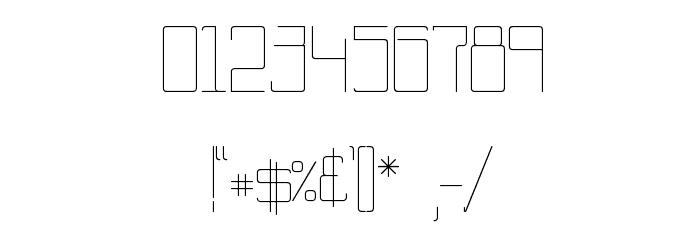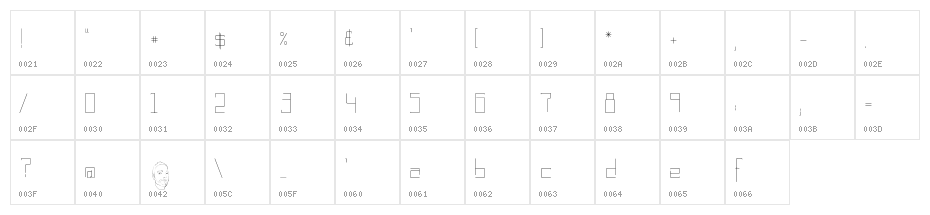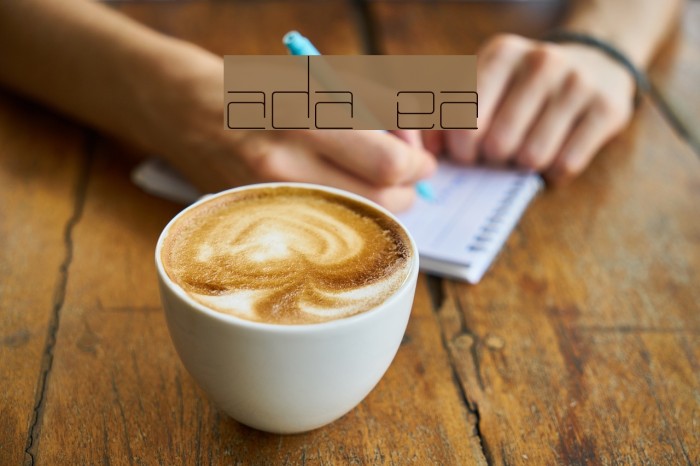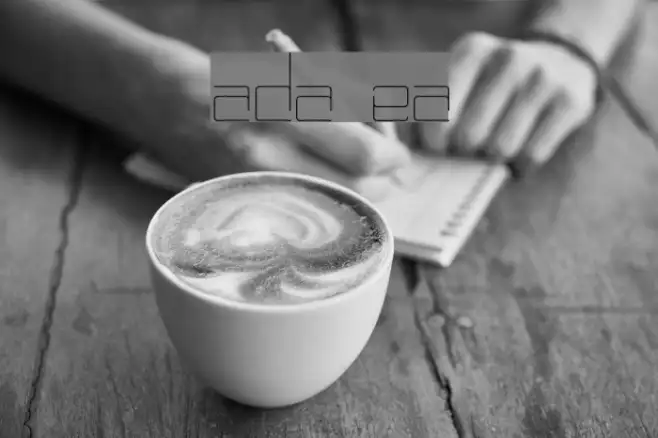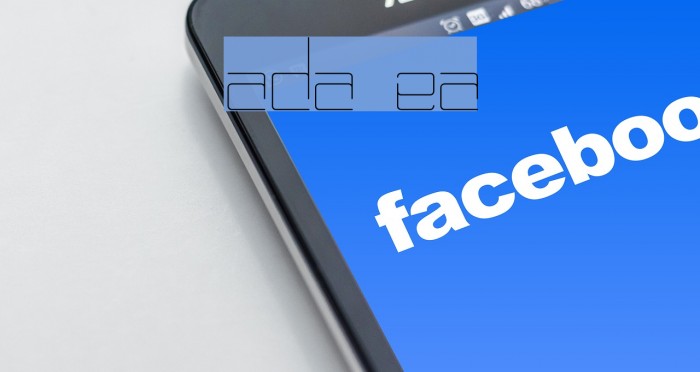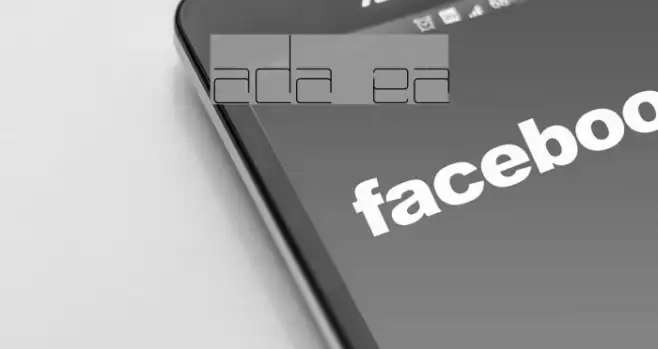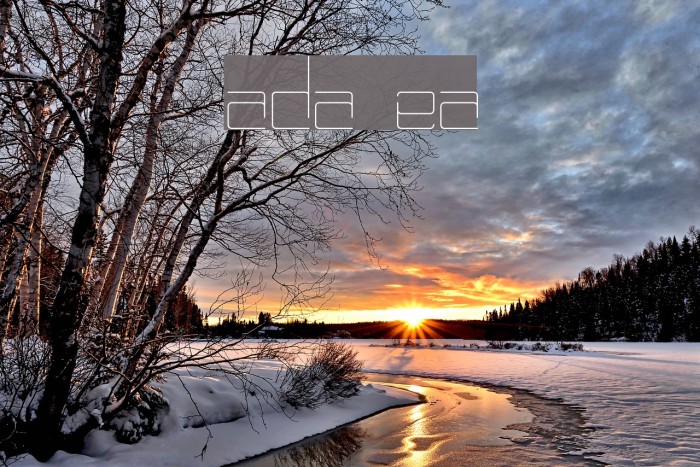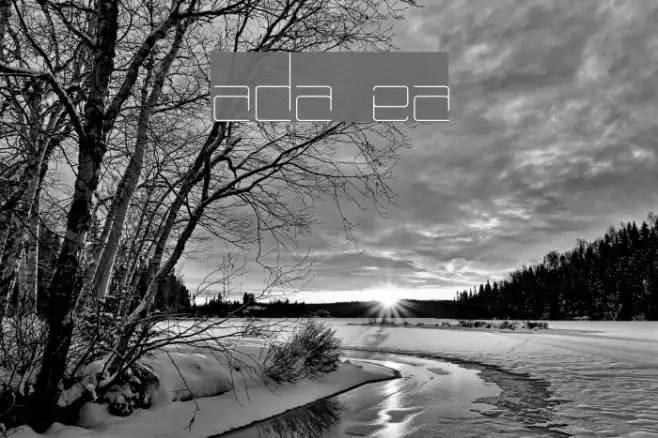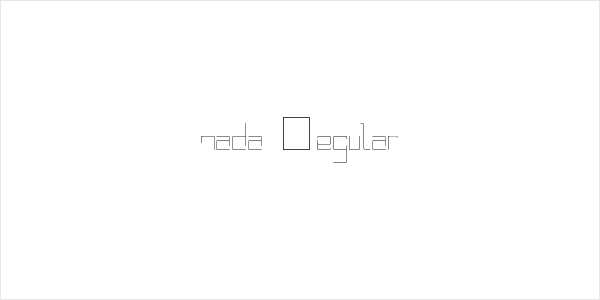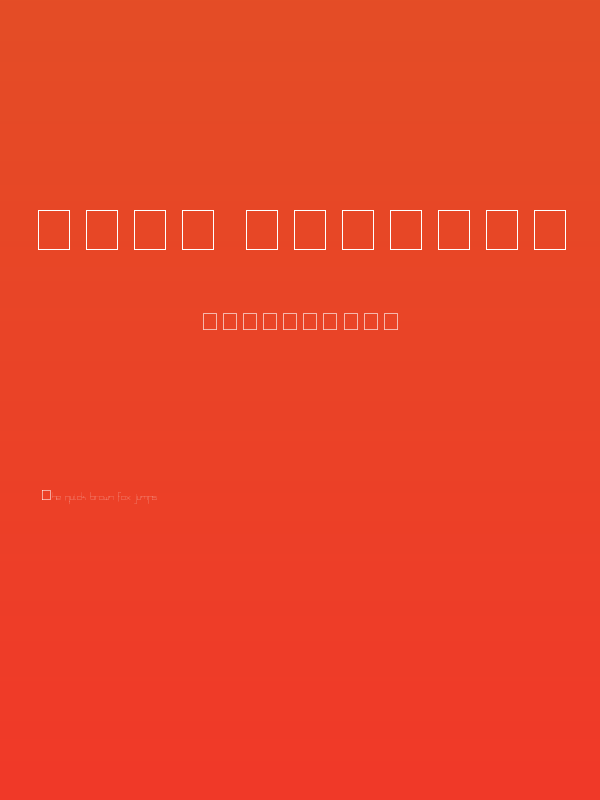
nada Regular Font
nada Regular Description
This font features a minimalist and geometric design, characterized by thin, consistent strokes and a modern aesthetic. The characters are constructed with straight lines and sharp angles, giving it a technical and precise appearance. The lowercase letters maintain a uniform height, while the uppercase letters are slightly taller, adding a subtle hierarchy. Numbers and special characters follow the same geometric style, ensuring a cohesive look across all glyphs. The overall design is clean and uncluttered, making it suitable for contemporary and tech-oriented projects.
| Use Case | Logos, Headlines, Tech interfaces |
| Proposed Projects | Ideal for tech branding, modern web design, and minimalist posters. |